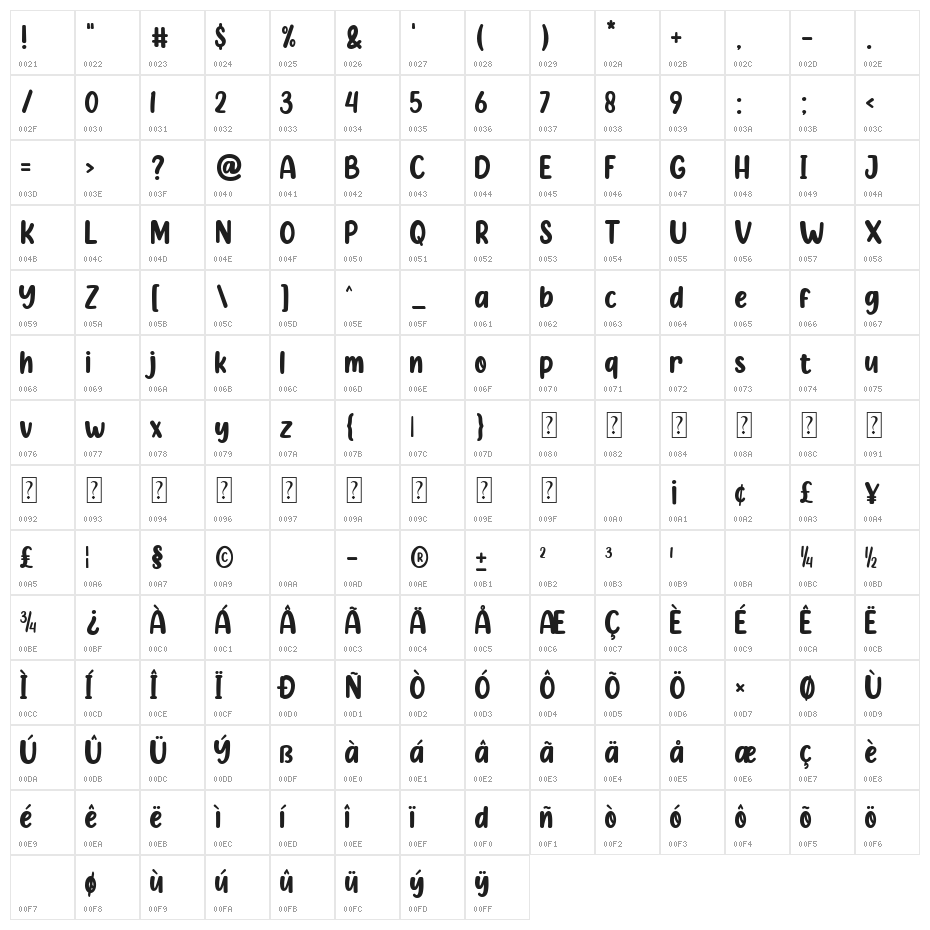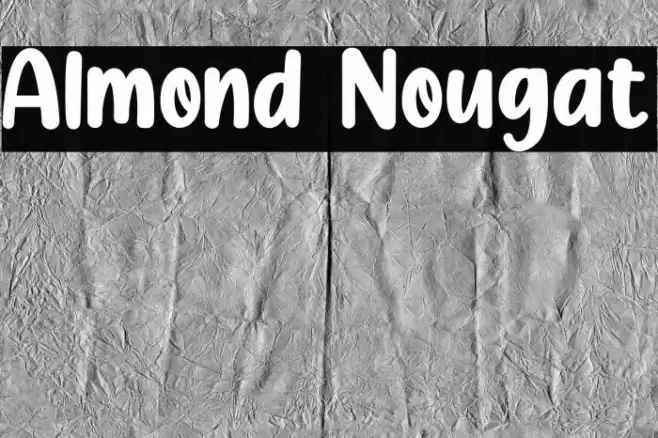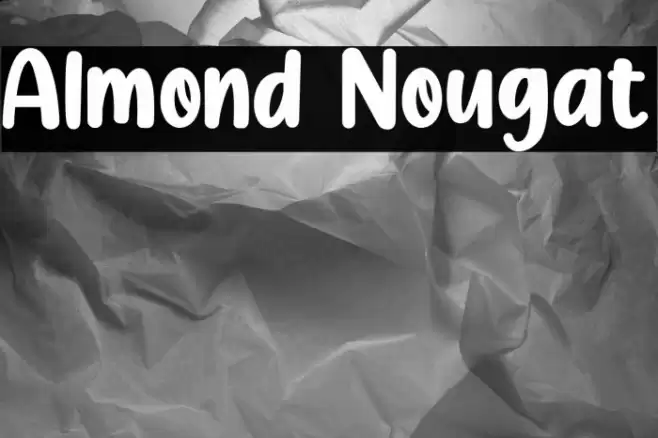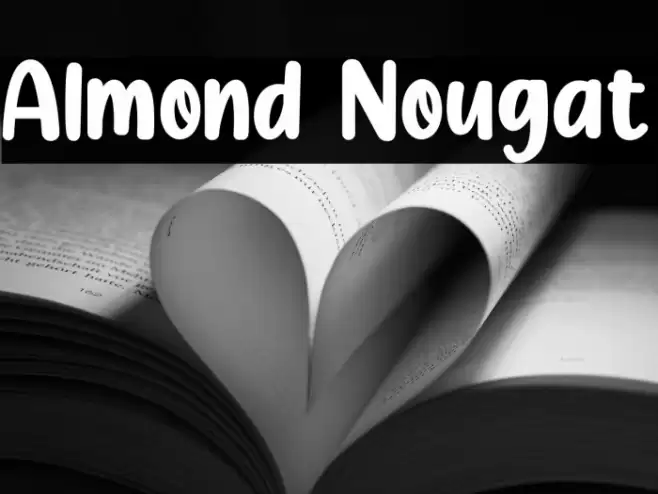
Almond Nougat Font
Almond Nougat Description
This playful and bold font features rounded edges and a friendly, approachable style. The characters are thick and uniform, with a slightly whimsical touch that adds personality to any text. The uppercase and lowercase letters maintain a consistent weight, creating a harmonious look. Numbers and special characters are crafted with the same playful aesthetic, making them stand out while remaining legible. This font is perfect for projects that require a fun and engaging appearance, such as children's books, playful branding, or eye-catching headlines.
| Proposed Projects | Ideal for children's books, playful branding, and eye-catching headlines. |